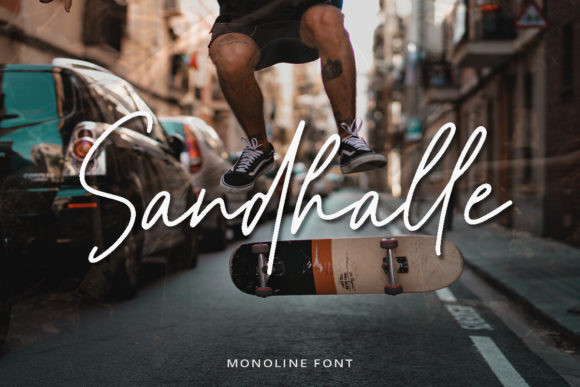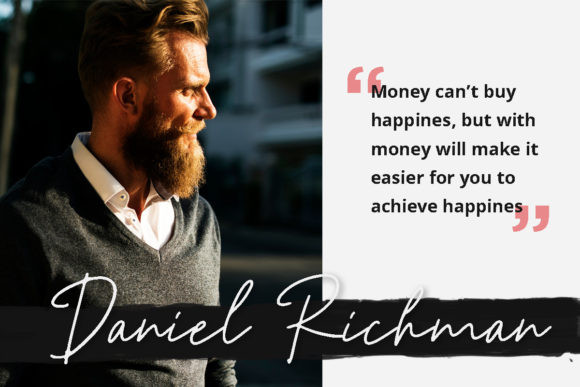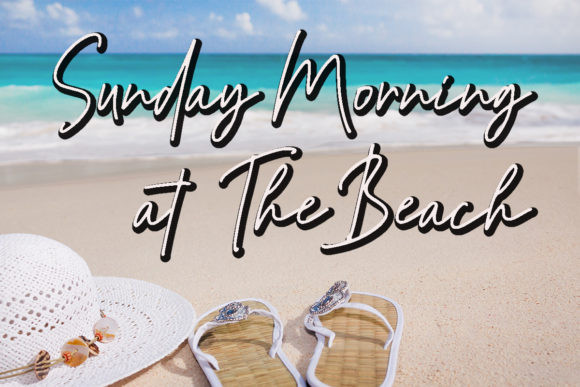
Sandhalle Font
Sandhalle is a modern and beautiful handwritten font with an incredibly friendly feel. Whether you’re looking for fonts for Instagram or calligraphy scripts for DIY projects, this font will turn any creative idea into a true piece of art!